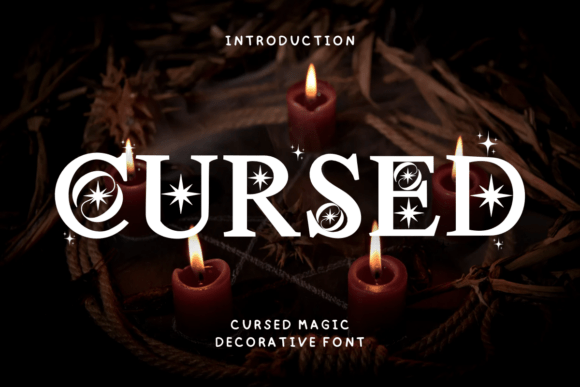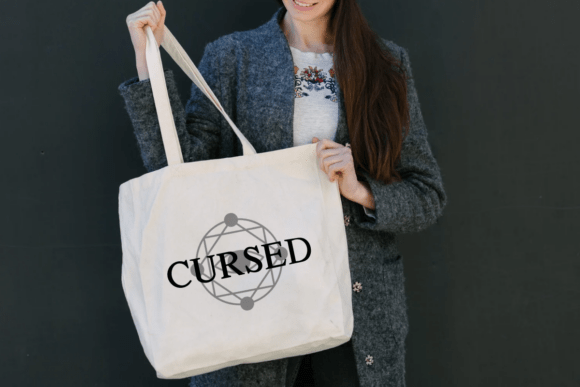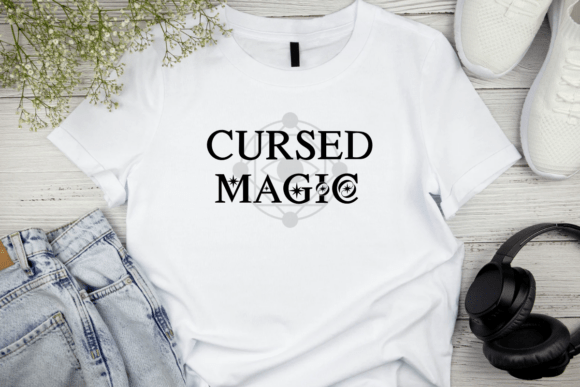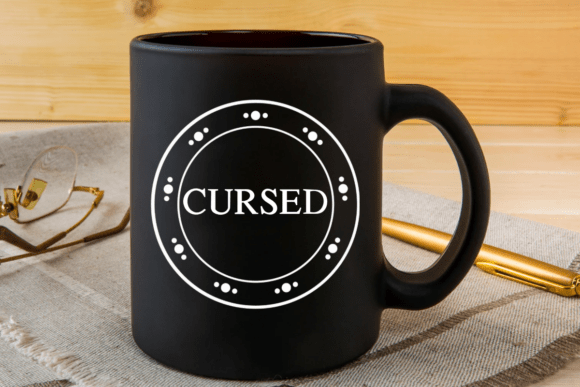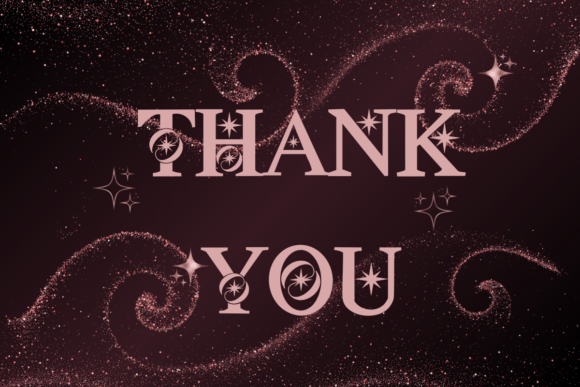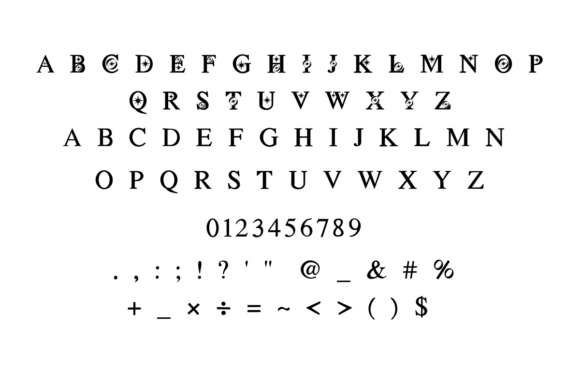
The Enchanted Allure of Cursed Magic Font
Have you ever found yourself lost in the creative process, pouring your heart onto the page as the words begin to flow? For many of us, those moments are the most magical, as if the pen is an extension of our very soul. It’s in these fleeting moments that the right font can elevate our words, imbuing them with a depth and character that resonates with our truest selves.
Enter Cursed Magic Font, an ornate typeface that effortlessly weaves elegance into every stroke. Whether you’re crafting heartfelt messages, jotting down creative notes, or simply expressing yourself, Cursed Magic Font is the perfect companion to bring your words to life. Its versatility and charm make it a valuable asset for designers, offering endless possibilities for enhancing digital content, fashion statements, and even physical designs.
Cursed Magic Font Key Features
- Font Style: A unique, fantasy-inspired font with a mix of gothic and medieval elements, perfect for adding a touch of magic and mystery to your designs.
- Character Set: Includes a comprehensive set of characters, including uppercase and lowercase letters, numbers, punctuation marks, and special characters, making it suitable for a variety of design projects.
- Unique Characteristics: Features intricate details, such as ornate flourishes and elaborate letterforms, which set it apart from more traditional fonts and add a touch of whimsy to your designs.
Cursed Magic Font Review
As a designer, I was excited to dive into the Cursed Magic Font and see what it had to offer. Here’s my honest review:
- The font has a unique, mystical feel that’s perfect for projects that need a touch of the unknown.
- The characters are well-designed and consistent throughout the font, making it easy to use and read.
- The font comes with a wide range of weights and styles, giving you plenty of options to customize your design.
- The font is highly customizable, allowing you to adjust the size, color, and spacing to fit your needs.
- The font can be a bit too ornate for some projects, making it difficult to read at smaller sizes.
- The font doesn’t come with a complete character set, which can be a problem for projects that require special characters.
- The font can be a bit glitchy on certain systems, causing it to render incorrectly.
The Cursed Magic Font is a unique and powerful tool for designers who want to add a touch of magic to their projects. While it has some limitations, the benefits far outweigh the drawbacks. I’d definitely recommend it to anyone looking for a font with a little extra oomph.
Tips for Getting the Most Out of Cursed Magic Font
Experiment with different font sizes, colors, and effects to create a unique look.
Combine Cursed Magic Font with other design elements, such as images and shapes, to add depth and interest.
Cursed Magic Font is perfect for:
Creating spooky or mystical designs for Halloween or fantasy-themed projects.
Adding a touch of whimsy or playfulness to children’s designs.
Creating a unique and eye-catching brand identity or logo.